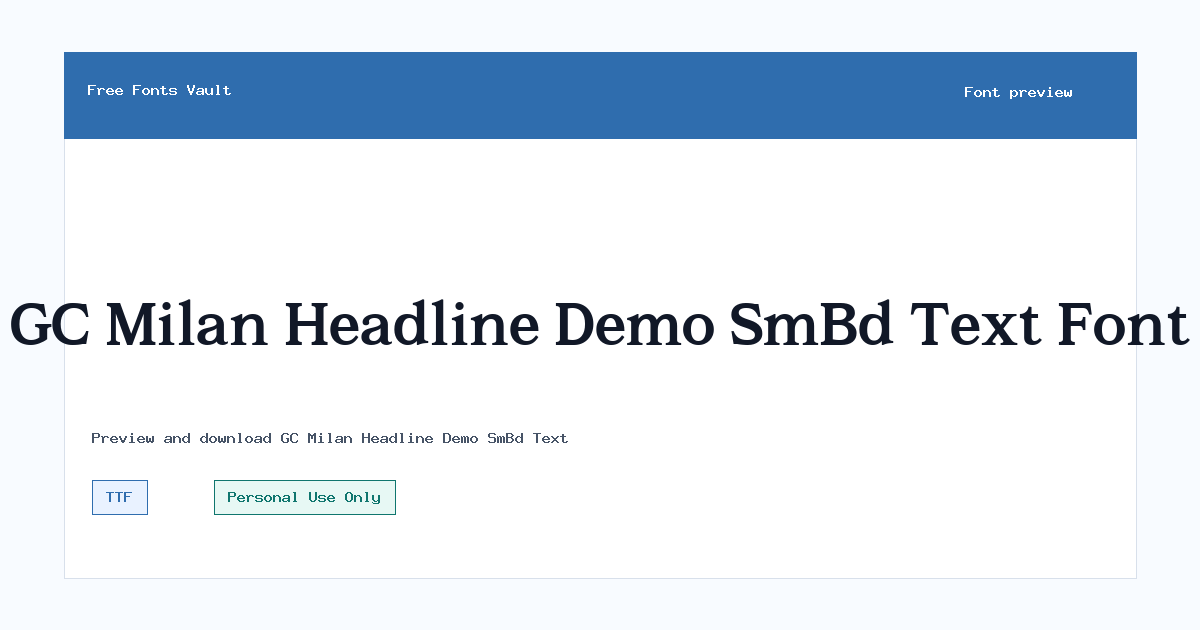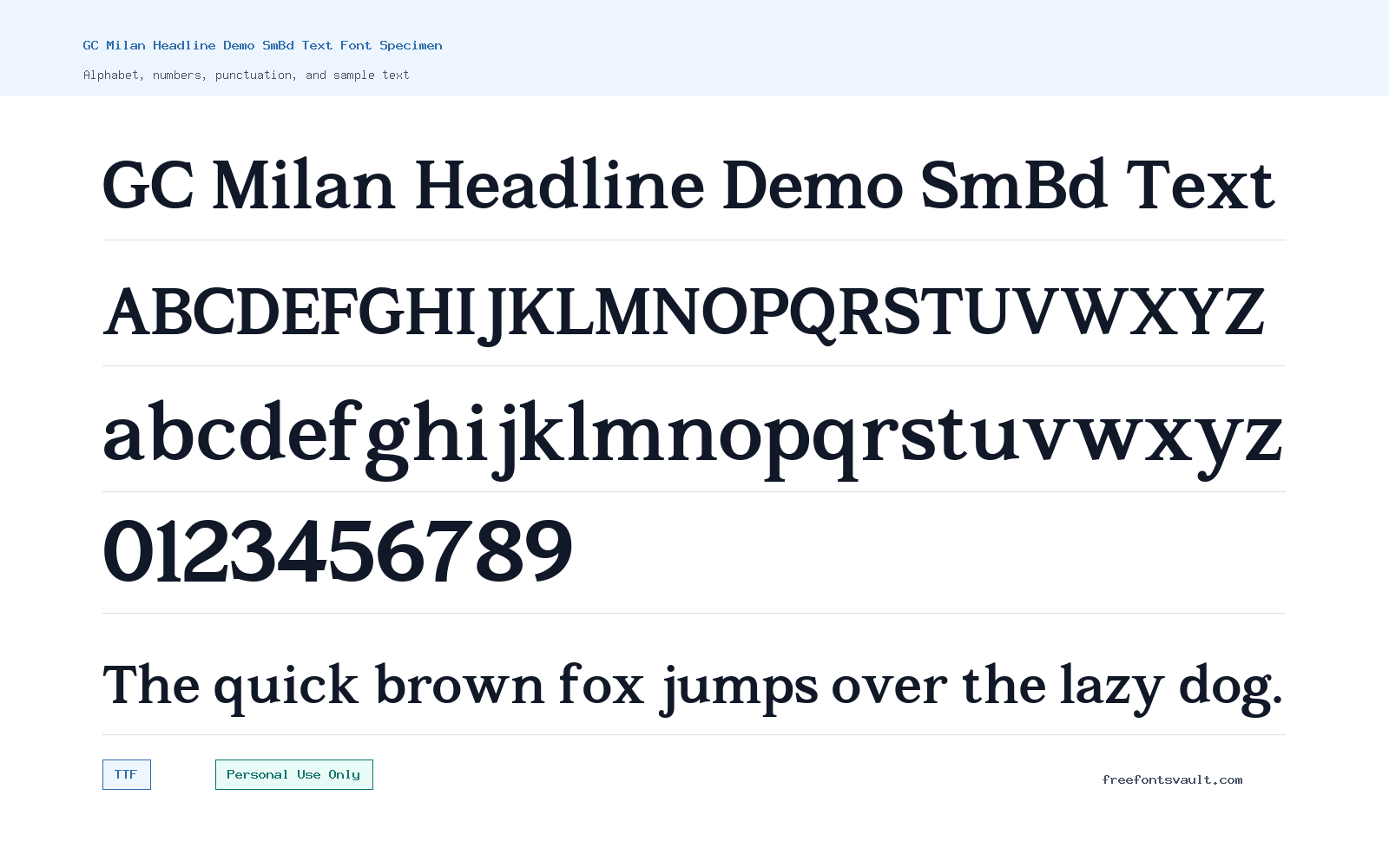
GC Milan Headline Demo SmBd Text
- Designer Zainaldi Ibrahim of Glyphonic
GC Milan Headline Demo SmBd Text is a headline-focused serif font with a semi-bold text style, made for visitors who want a stronger display look without moving into overly heavy lettering.
About GC Milan Headline Demo SmBd Text
GC Milan Headline Demo SmBd Text is part of the GC Milan Headline demo naming shown for this font file. The style is best approached as a display serif: useful when you need a clear, structured headline, a short title, or a refined label that still carries enough weight to stand out. Because the file is marked as a demo and the license note says Personal Use Only, it is safest to treat it as a try-before-you-license font rather than a finished commercial asset.
Use the preview box to test the exact words you plan to set. Serif headline fonts can look excellent in names, covers, posters, invitations, moodboards, and presentation titles, but spacing and contrast can change quickly from one word to another. Try uppercase, title case, punctuation, and numbers before downloading. For longer text, keep the size generous and check line spacing carefully. If you are designing a full layout, pair it with a plain sans serif or a quiet text serif so the headline remains the main visual focus.
- Semi-bold headline style suited to short display text, titles, labels, and personal design drafts.
- Personal poster drafts, social graphics, invitations, and title treatments.
- Testing refined serif headline ideas before choosing or licensing a final typeface.
The font is credited to Zainaldi Ibrahim of Glyphonic, with Glyphonic listed as the foundry.
What is this font best used for?
It is best for short headline settings such as poster titles, invitation headings, social graphics, cover mockups, and personal design experiments.
Can I use it for body text?
It is better suited to headlines and short text. If you try it in longer paragraphs, test readability, spacing, and size before using it.
Who designed GC Milan Headline Demo SmBd Text?
The font is credited to Zainaldi Ibrahim of Glyphonic.